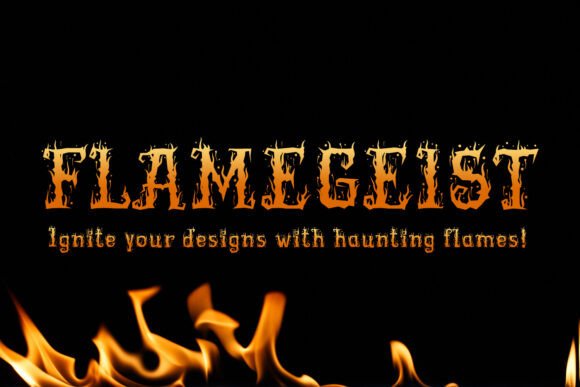
Unleash the Fiery Spirit of Your Designs with Flamegeist Font
Are you looking for a font that can add a hauntingly fiery touch to your designs? Look no further than Flamegeist, a spooky and intense typeface that’s perfect for a variety of creative projects. With its flaming, jagged letterforms, this Halloween-inspired font is sure to captivate attention and bring a burning, ghostly vibe to your work.
The Perfect Blend of Spookiness and Intensity
Flamegeist is a unique and eye-catching font that’s designed to bring a perfect blend of spookiness and intensity to your designs. Its flaming, jagged letterforms are reminiscent of a raging fire, making it ideal for projects that require a bold and attention-grabbing look. Whether you’re designing for haunted events, sizzling BBQ menus, scary movie titles, or seasonal marketing campaigns, Flamegeist is the perfect choice.
Ideal for a Variety of Design Projects
Flamegeist is a versatile font that can be used for a wide range of design projects, including:
- Posters: Create eye-catching posters for haunted events, Halloween parties, or horror movie premieres with Flamegeist’s bold and fiery letterforms.
- BBQ Restaurant Branding: Add a sizzling touch to your BBQ restaurant’s branding with Flamegeist’s flaming font, perfect for menus, signage, and promotional materials.
- Hot Price Promotions: Create attention-grabbing promotions with Flamegeist’s bold and fiery font, perfect for highlighting discounts, sales, or limited-time offers.
- Party Invitations: Set the tone for a spooky or fiery party with Flamegeist’s unique and eye-catching font, perfect for invitations, flyers, or social media graphics.
- Horror-Themed Graphics: Bring your horror-themed graphics to life with Flamegeist’s hauntingly fiery font, perfect for movie titles, book covers, or digital art.
- Eerie Digital Art: Add a burning, ghostly vibe to your digital art with Flamegeist’s unique and captivating font, perfect for illustrations, concept art, or graphic designs.
Compatibility and Quality
Setting Your Creativity Ablaze
With Flamegeist, you can set your creativity ablaze and bring a fiery flair to your designs. This font is perfect for designers and crafters who want to add a bold and attention-grabbing touch to their work. Whether you’re a seasoned designer or just starting out, Flamegeist is an excellent choice for anyone looking to create unique and captivating designs.
Key Features of Flamegeist
- Flaming, jagged letterforms: Add a hauntingly fiery touch to your designs with Flamegeist’s unique and eye-catching letterforms.
- Halloween-inspired: Perfect for haunted events, Halloween parties, or horror-themed graphics.
- High-quality results: Ensures professional and high-quality results for your designs.
- Bold and attention-grabbing: Perfect for posters, promotions, and other designs that require a bold and attention-grabbing look.
Flamegeist is a unique and captivating font that’s perfect for designers and crafters who want to add a hauntingly fiery touch to their designs. With its flaming, jagged letterforms and Halloween-inspired vibe, this font is ideal for a variety of creative projects, from posters and promotions to horror-themed graphics and eerie digital art. Fully compatible with major design tools, Flamegeist ensures high-quality and professional results, making it an excellent choice for anyone looking to set their creativity ablaze.